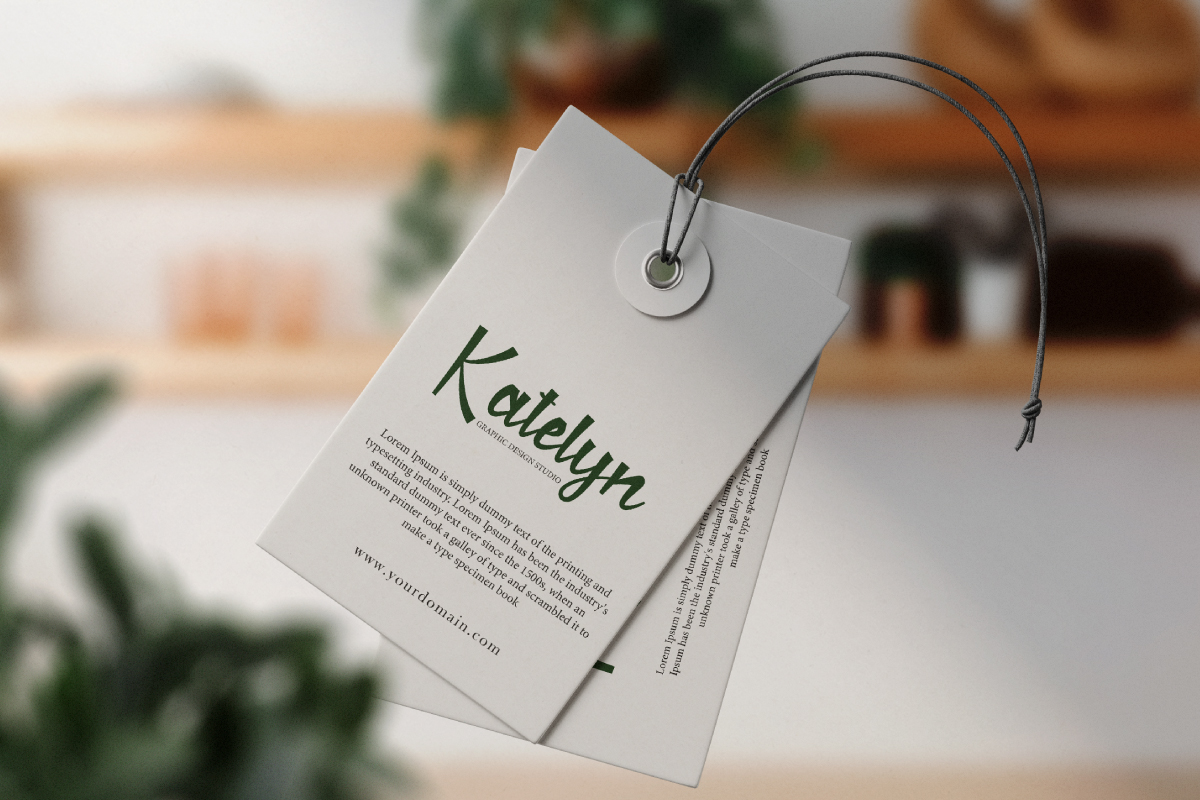
Charlie Heston Font
Charlie Heston Script Font
It’s a calligraphy font with unique handwriting shape designed by NoahType. This font gives an awesome, classy feel and is easy to read. It will be amazing for any industry: café, creative industry, event tenant, fashion, florist, food brand, influencer, salon and spa, writer, and more.
Charlie Heston Font includes full set of Uppercase and Lowercase Basic Characters, Numerals, and Punctuation. It will be amazing for any project: blog headers, business card, creating logo, label, magazine, mockup design, product packaging, quotes, signage, stationery, title, and more. Perfectly your extraordinary projects with this typeface.